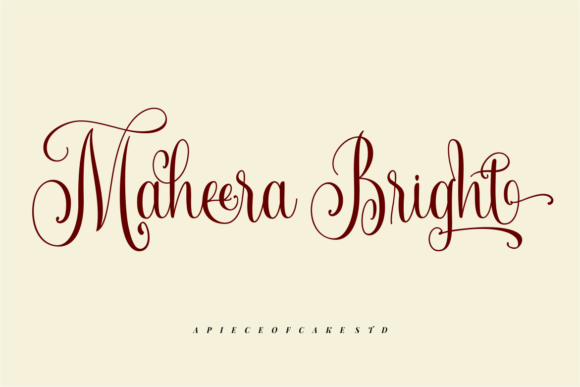
**Mesmerize Your Designs with Maheera Bright: The Enchanting Script Font**
Unleash the captivating charm of Maheera Bright, an exquisite script font that will effortlessly transform your creative visions into captivating masterpieces. With its elegant curves and enchanting swashes, Maheera Bright is the perfect choice for those seeking a touch of magic in their designs.
**Indulge in a World of Endless Possibilities**
Maheera Bright's versatility knows no bounds. Whether you're crafting enchanting wedding invitations, graceful branding materials, or heartfelt personal letters, this font will elevate your words with an air of sophistication that commands attention.
**Unleash Your Creativity with Ease**
Effortlessly access Maheera Bright's extensive glyphs and swashes through its PUA encoding. This intuitive feature grants you the freedom to explore a limitless range of captivating character combinations, empowering you to create designs that truly stand out.
**Immerse Yourself in the Allure of Maheera Bright**
With its intricate details and captivating flow, Maheera Bright will captivate your audience, leaving an unforgettable impression. Its elegant curves evoke a sense of timeless beauty, while its playful swashes add a touch of whimsy that will ignite your imagination.
**Embrace the Beauty of Maheera Bright Today**